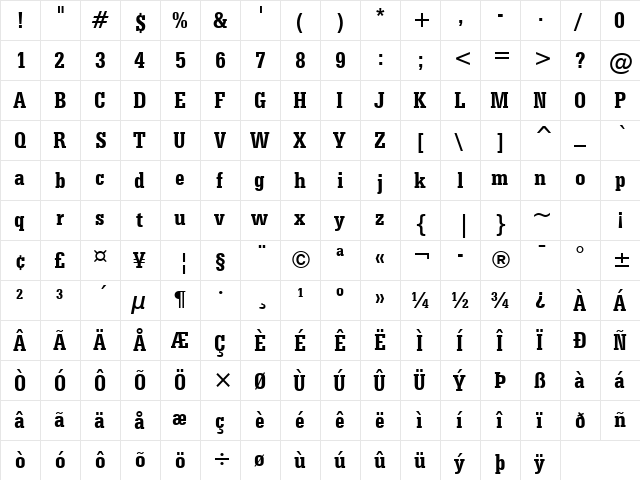
Serifa BdCn BT Bold
Design Context for Serifa BdCn BT Typeface
Serifa BdCn BT brings classic typographic sensibility to the table — its serifs and measured letterforms reflect centuries of print heritage. Its bold stroke weight gives it real presence on the page.
Pro Tip: Set Serifa BdCn BT with slightly loose tracking in headlines to let each letterform's detail read clearly at display sizes.